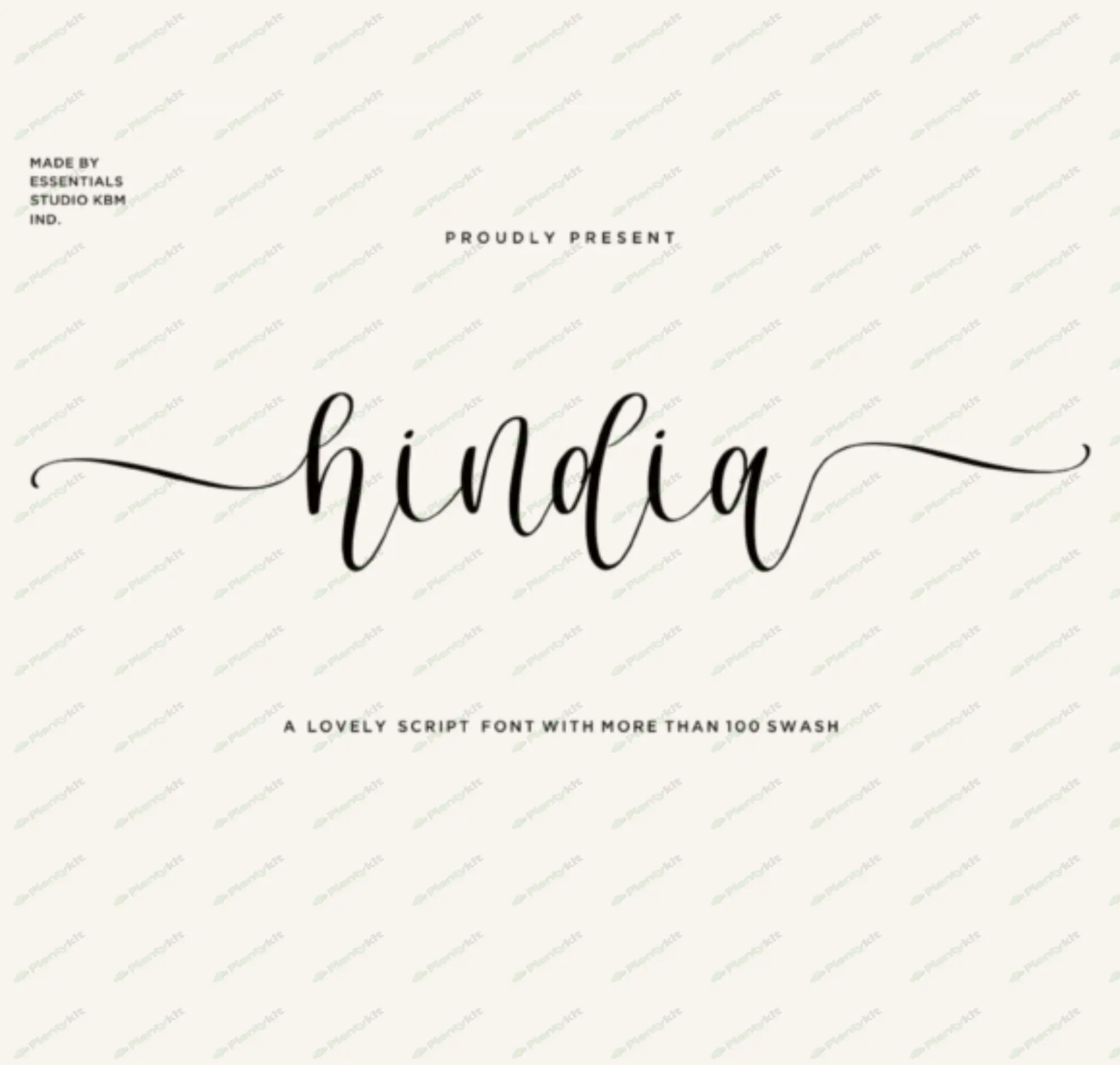
Awesome Fonts Bundle, Handwritten Font, Wedding Font, Modern Font, Display Font, Cricut Font
The bundle contains 36+ fonts. This font bundle includes a varied range of font styles such as, calligraphy, signature, brush lettering, playful font, display, vintage and lettering and more. Many have alternates, ligatures and swashes.
All these fonts are ideal for branding, crafting projects, wedding invitations, blogs, logos, quotes, book covers, stationary, marketing, magazines and more.